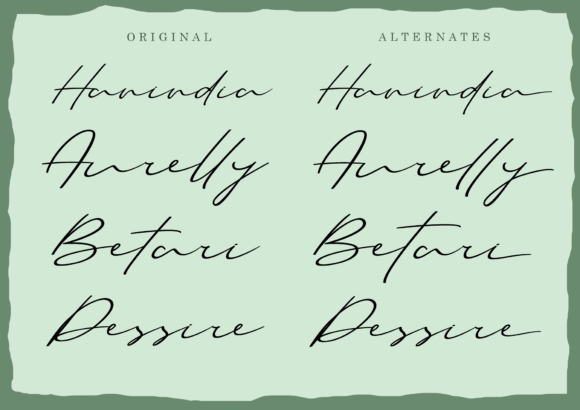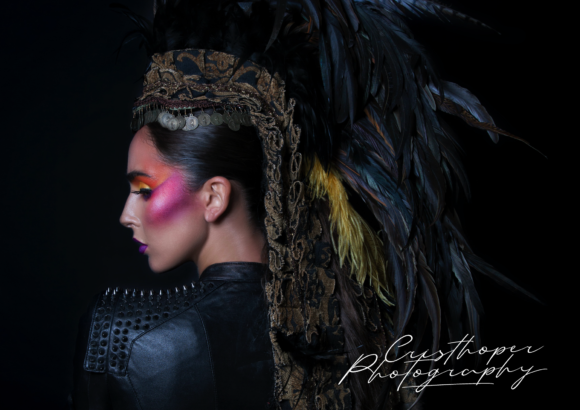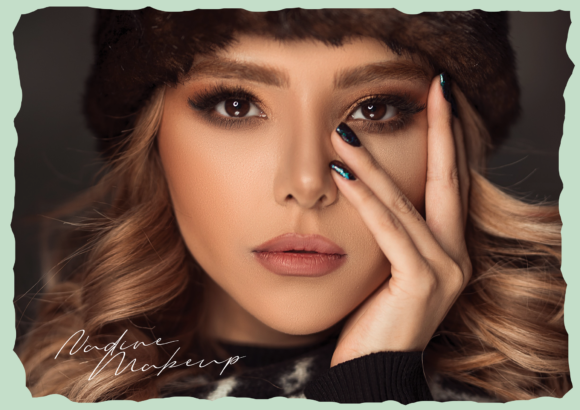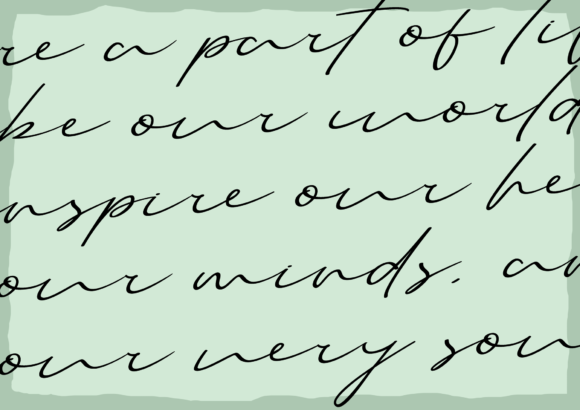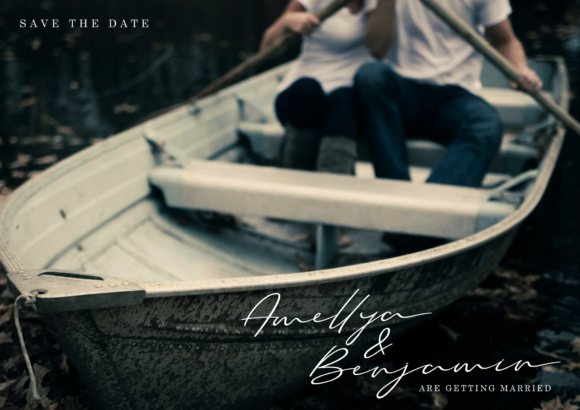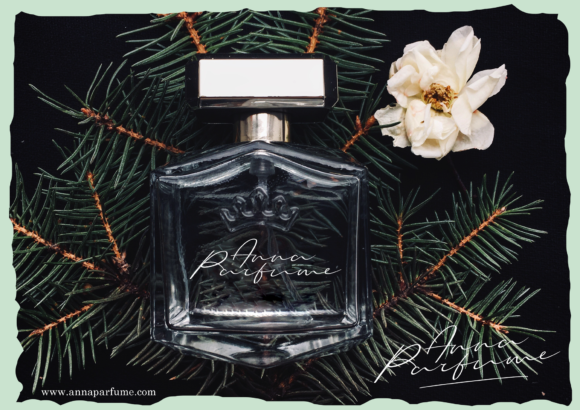
Introduction to Radinya Font
Radinya is a signature script font.
It features an incredibly classic style, while still keeping a friendly feel Radinya is the perfect font for making original and outstanding designs.
Why Choose Radinya Font?